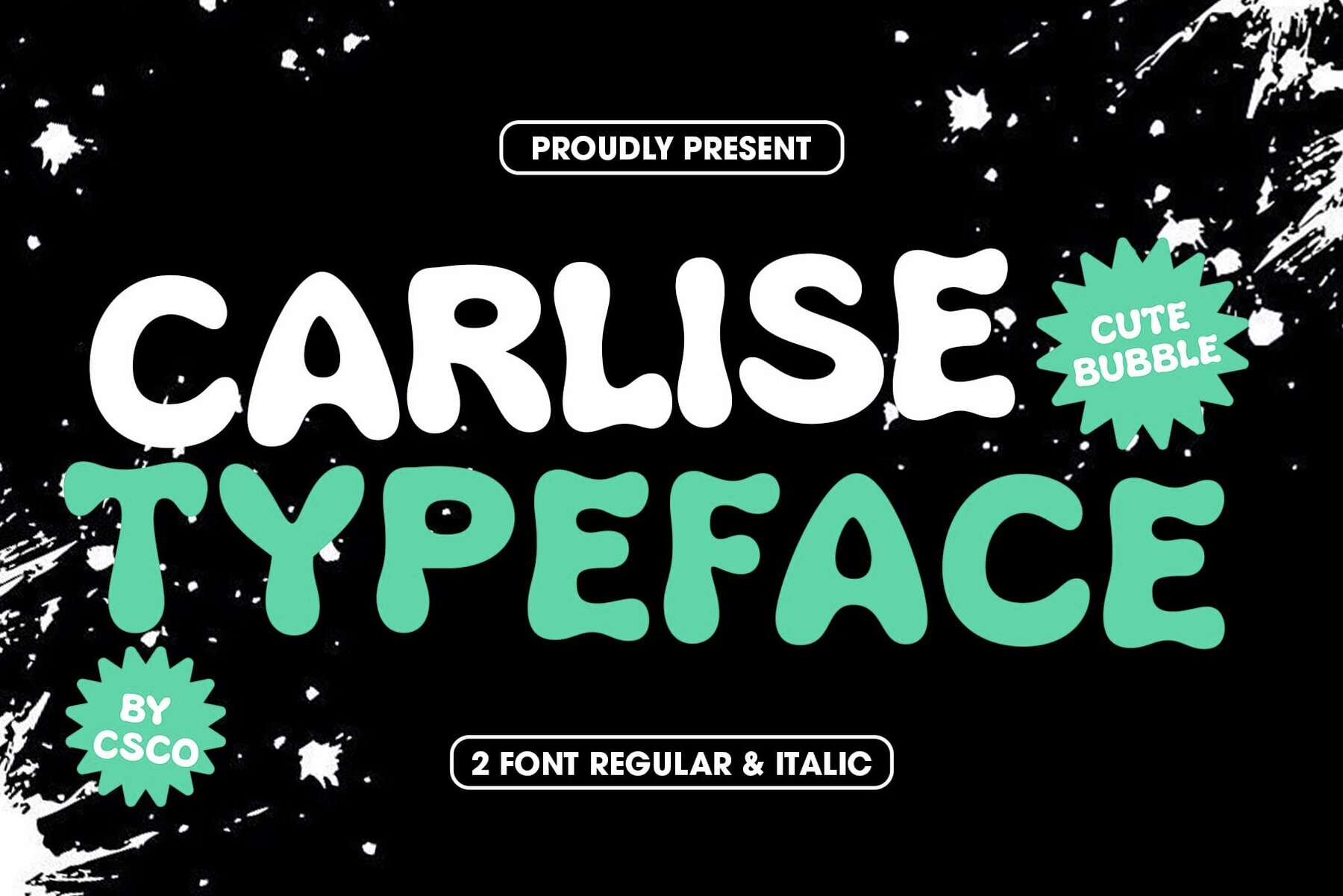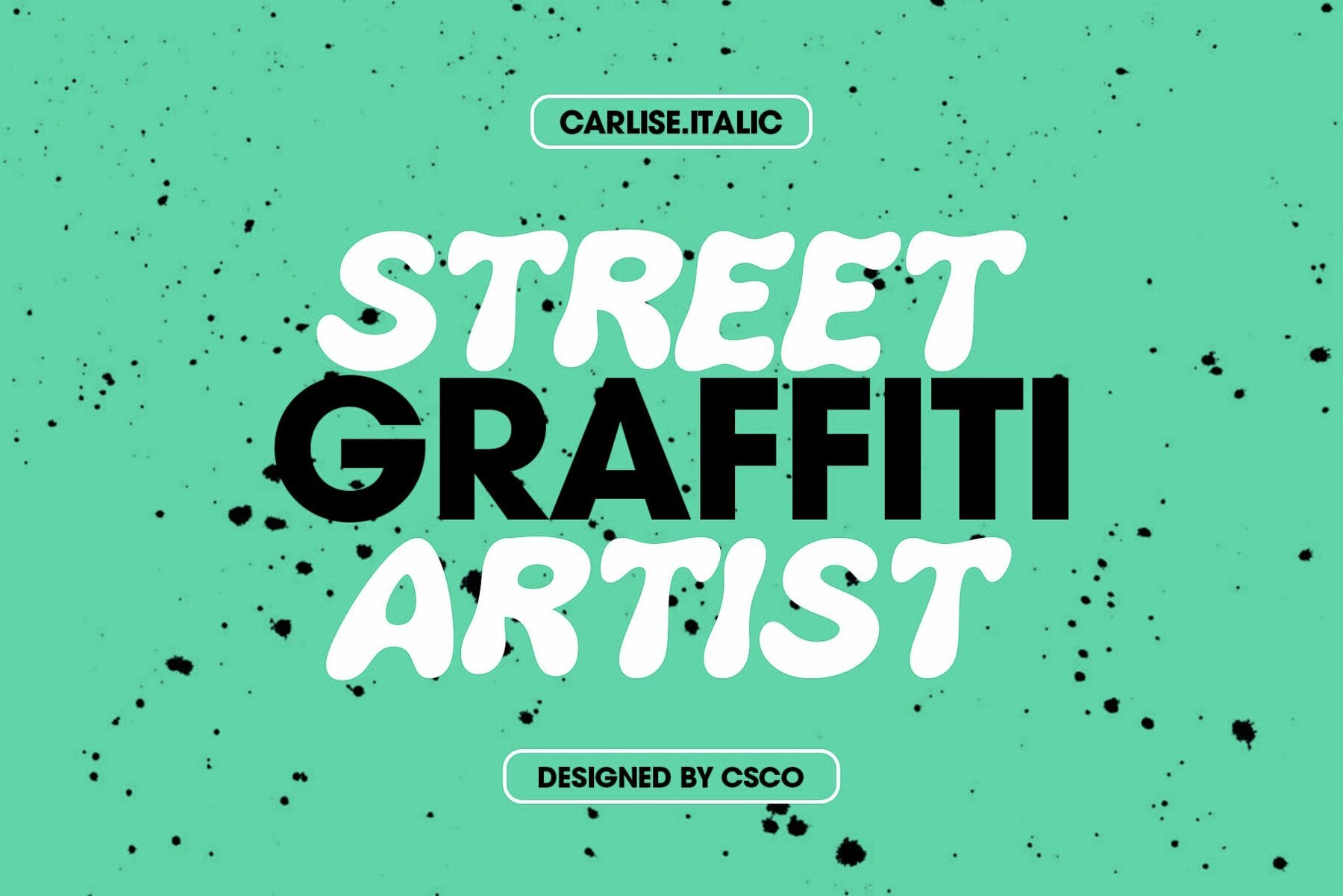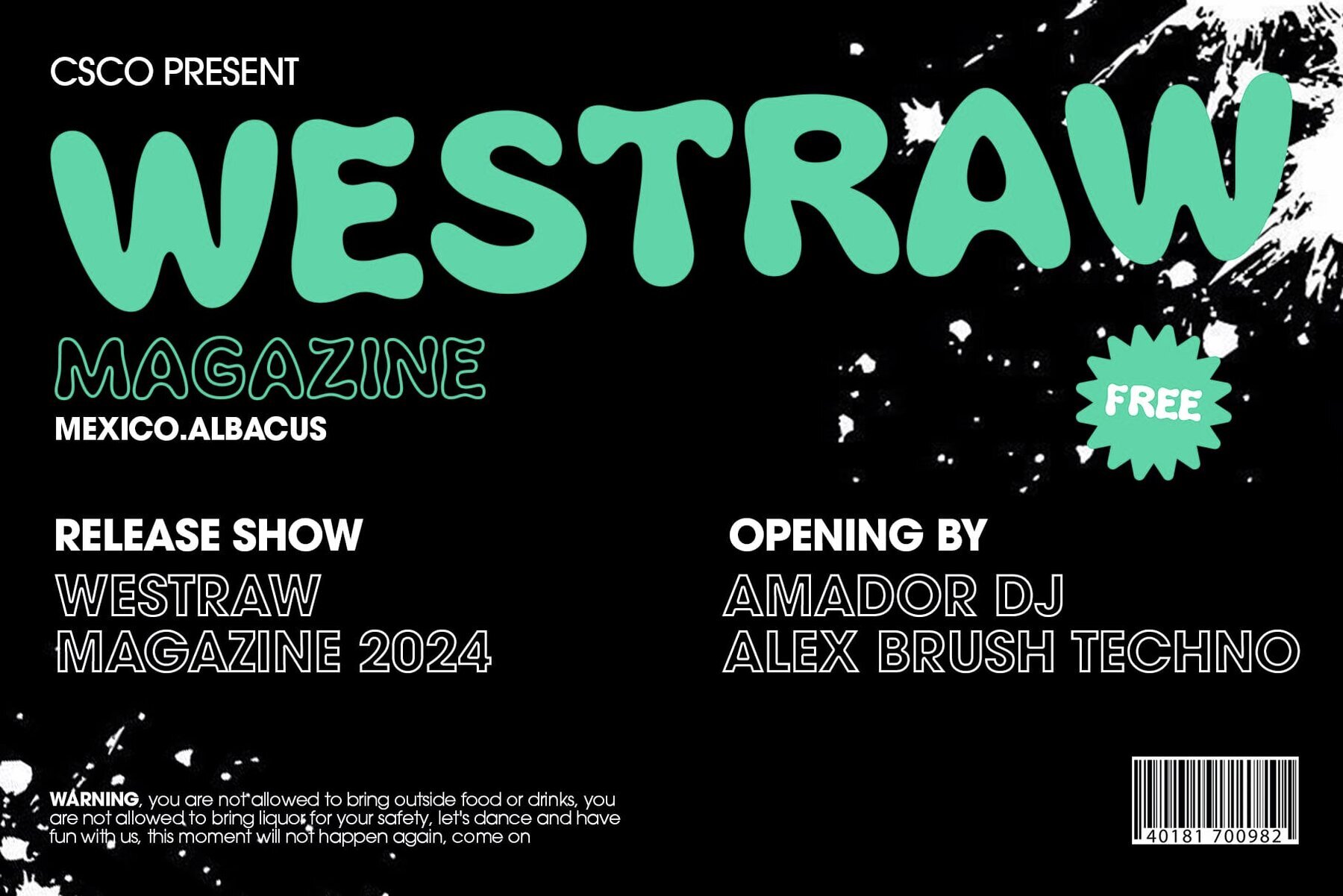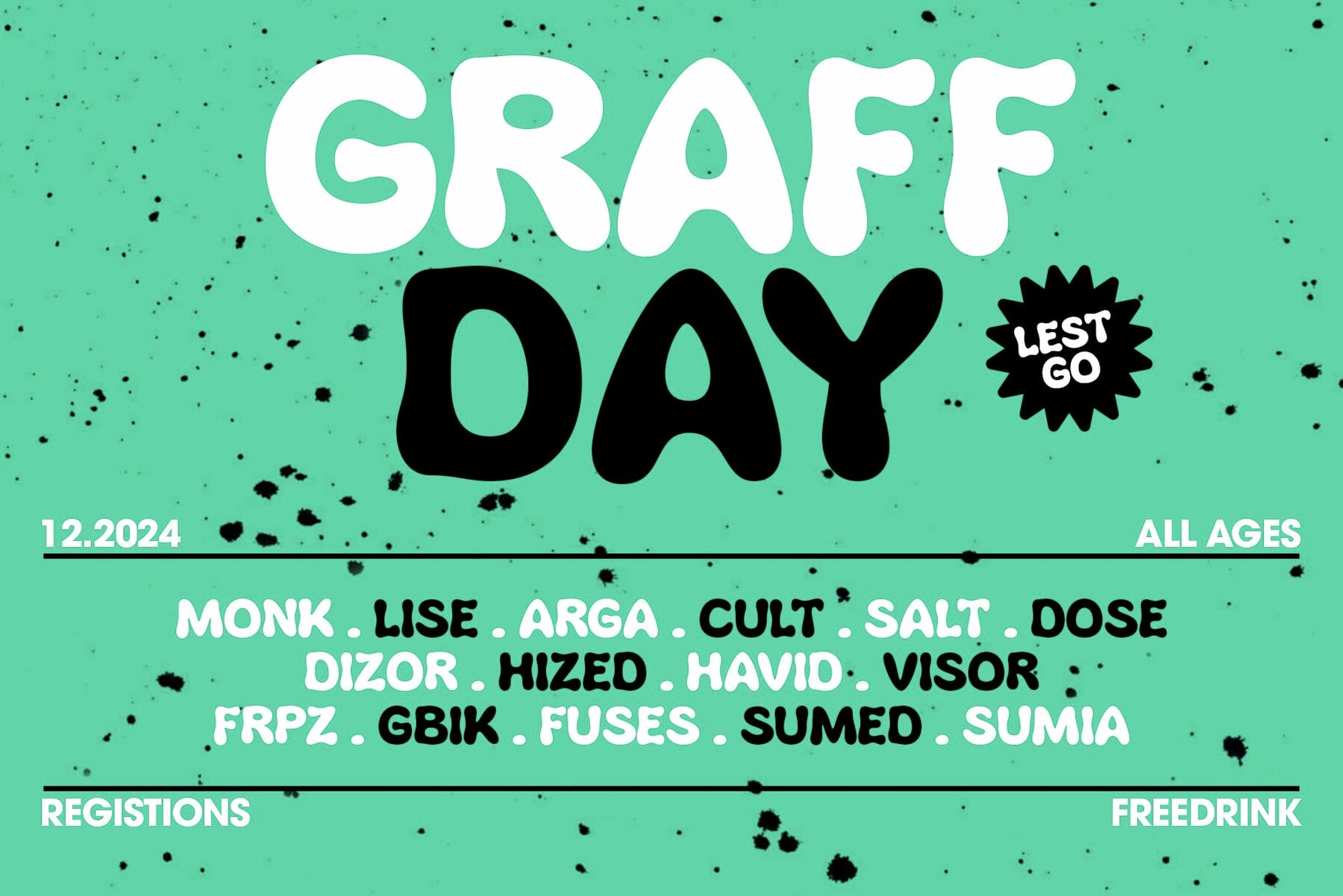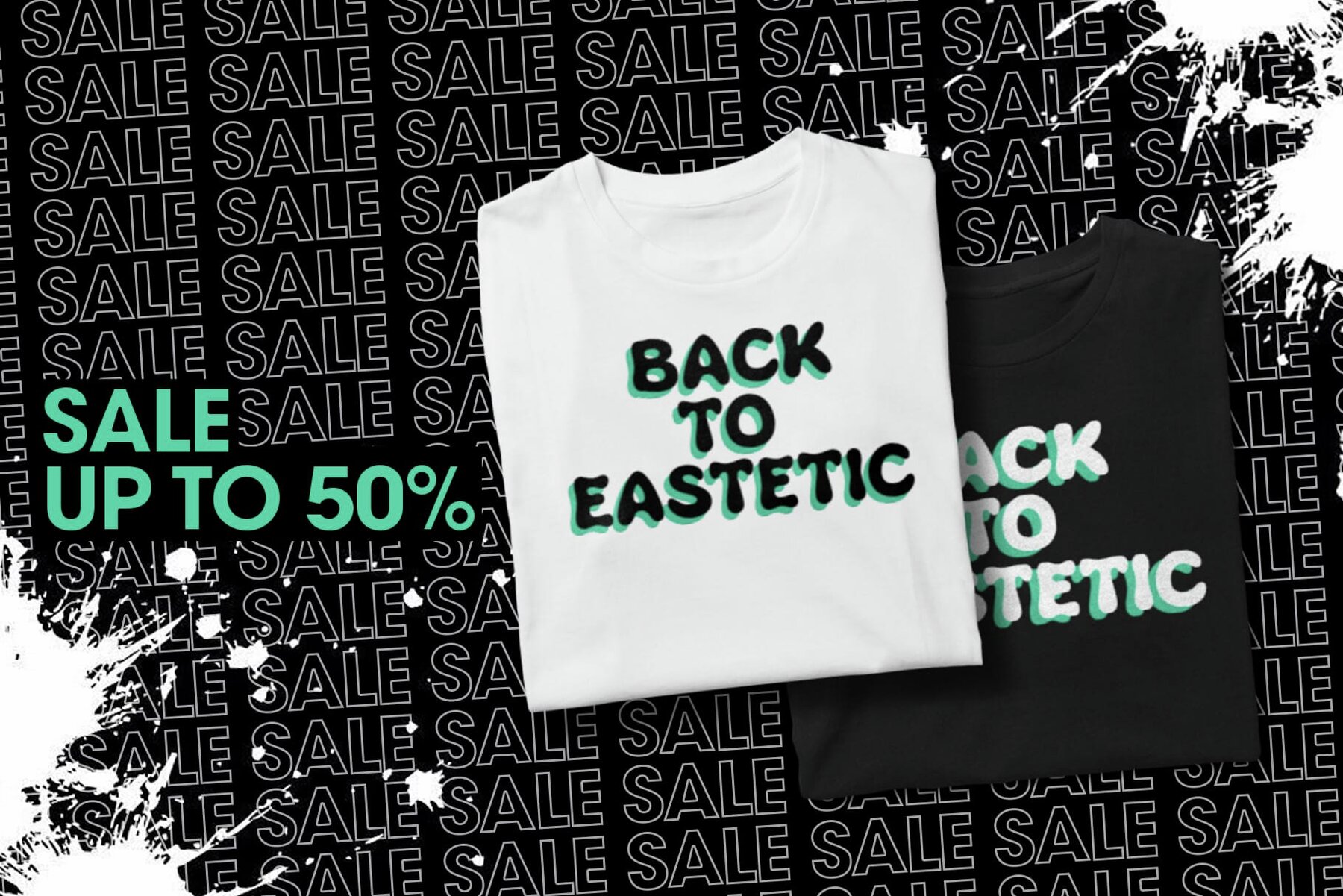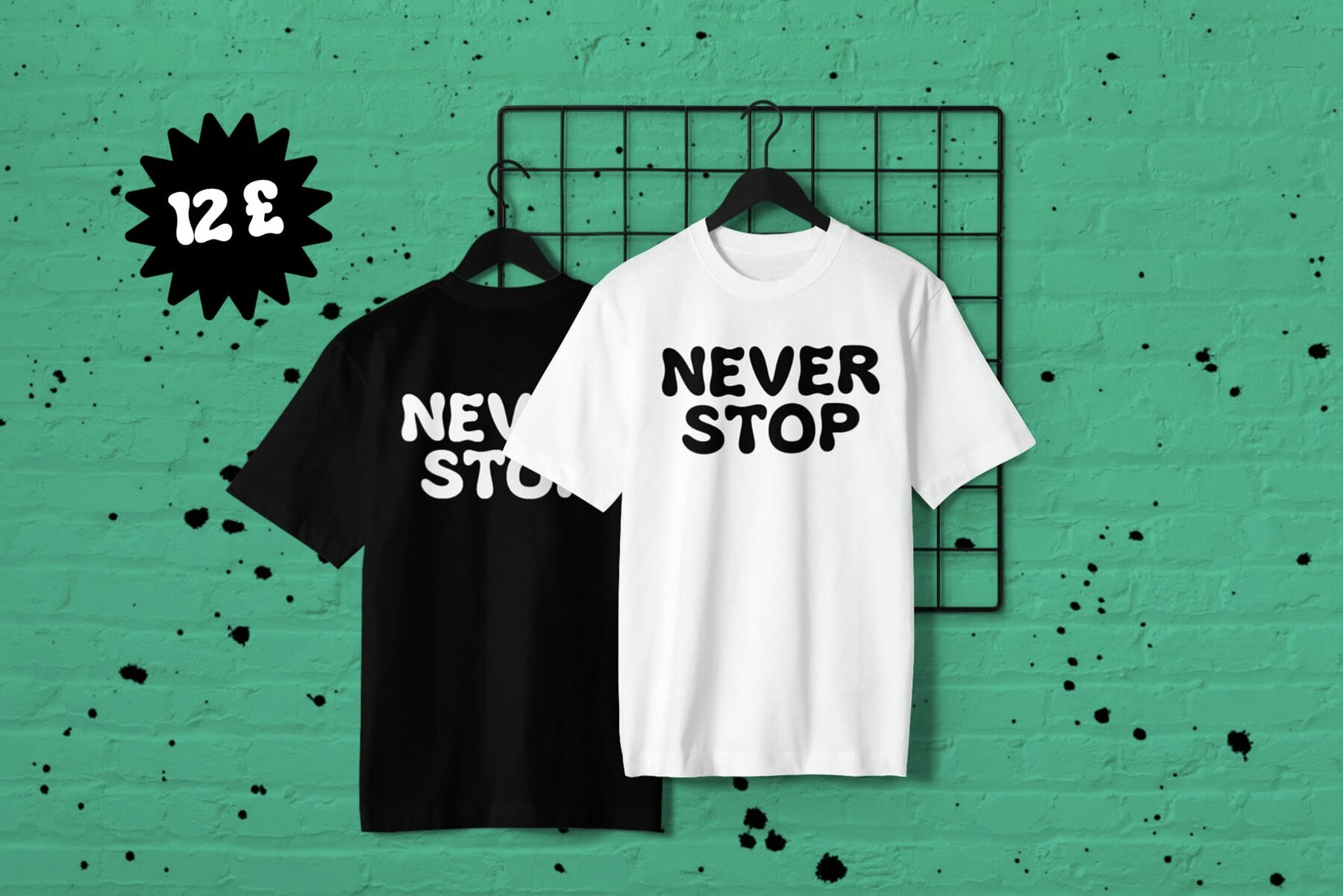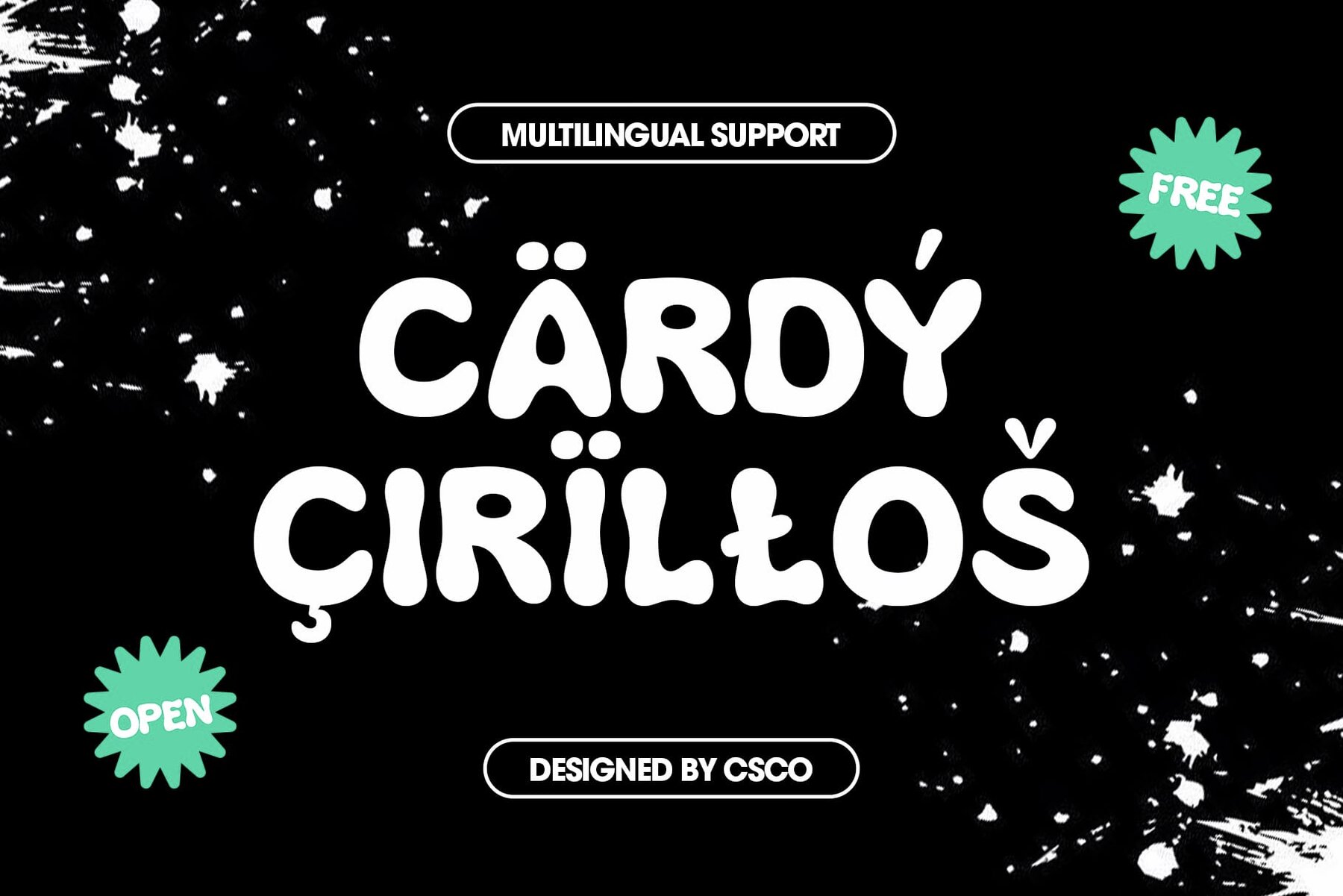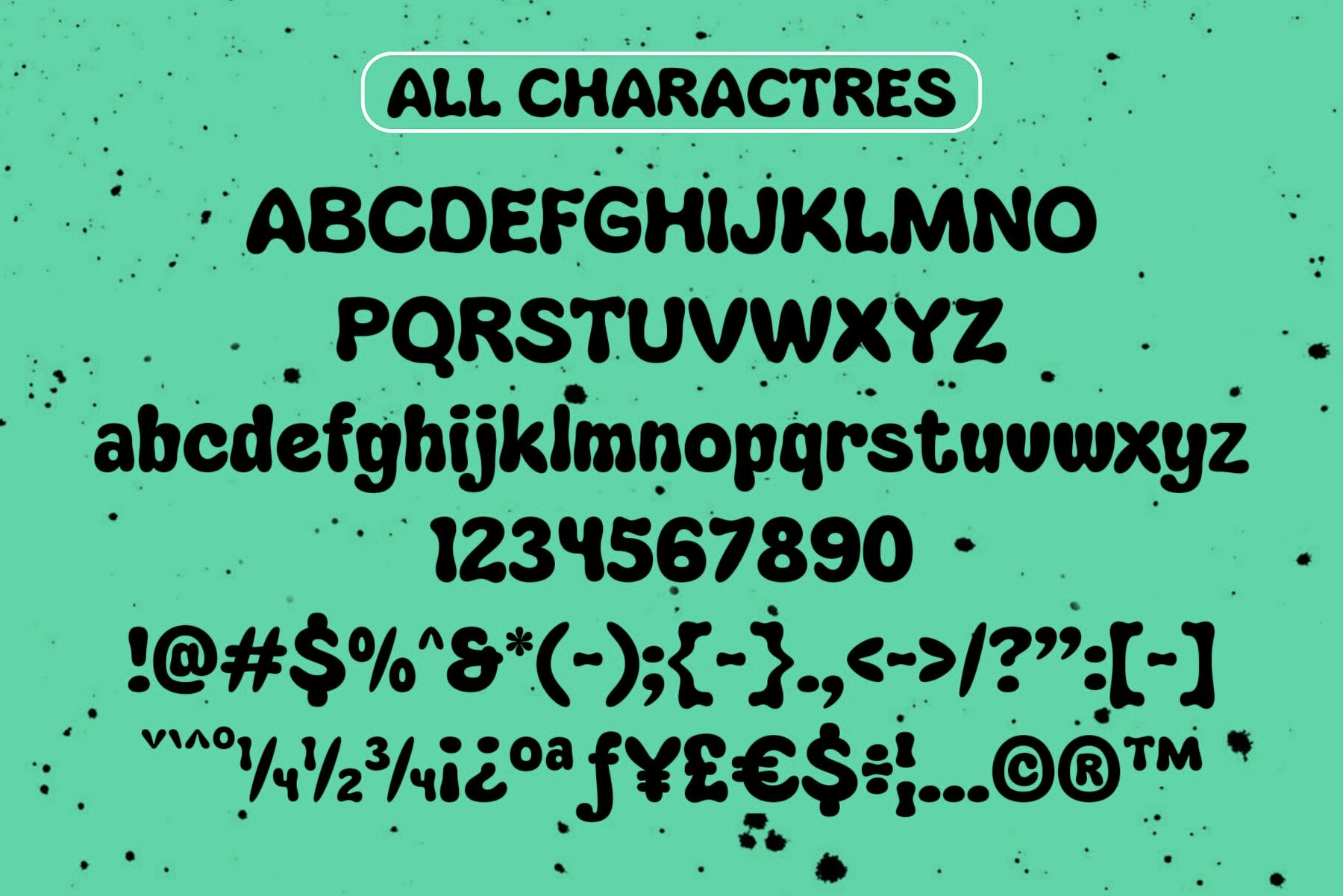
Carlise Font
Carlise by Craft Supply Co. is an enchanting display font that radiates playfulness, making it the perfect choice for designing materials aimed at capturing the hearts of children. With Carlise, incorporate a touch of whimsy into your projects. Its delightful characters create a visual language that resonates with the imaginative world of kids. Every letter of Carlise adds vibrancy, transforming alphabets into charming companions that engage and entertain, ensuring your designs leave a lasting impact. Carlise seamlessly adapts from storybooks to posters, bringing an extra dose of joy to educational materials, playful invitations, and any design geared towards a young audience. You can use this typeface without needing any specialized software. If you have any inquiries or need assistance, please feel free to contact us. We appreciate your support in enhancing your creative projects!Carlise: Captivating Innocence for Kids' Designs
Adorable Aesthetics
Vivid and Vibrant
Versatile Playfulness